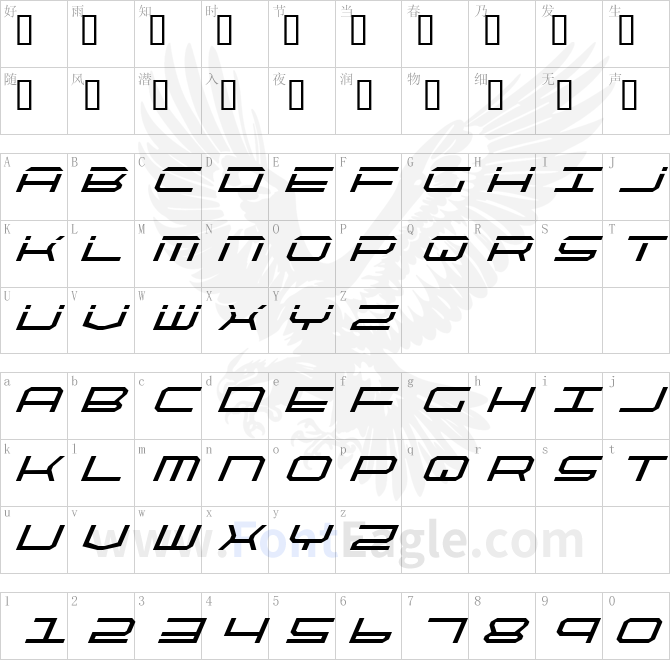
QuickTech-Italic is a great font, widely used in graphic design, single-page menu design, poster design and other fields, and is deeply loved by designers.QuickTech-Italic download.